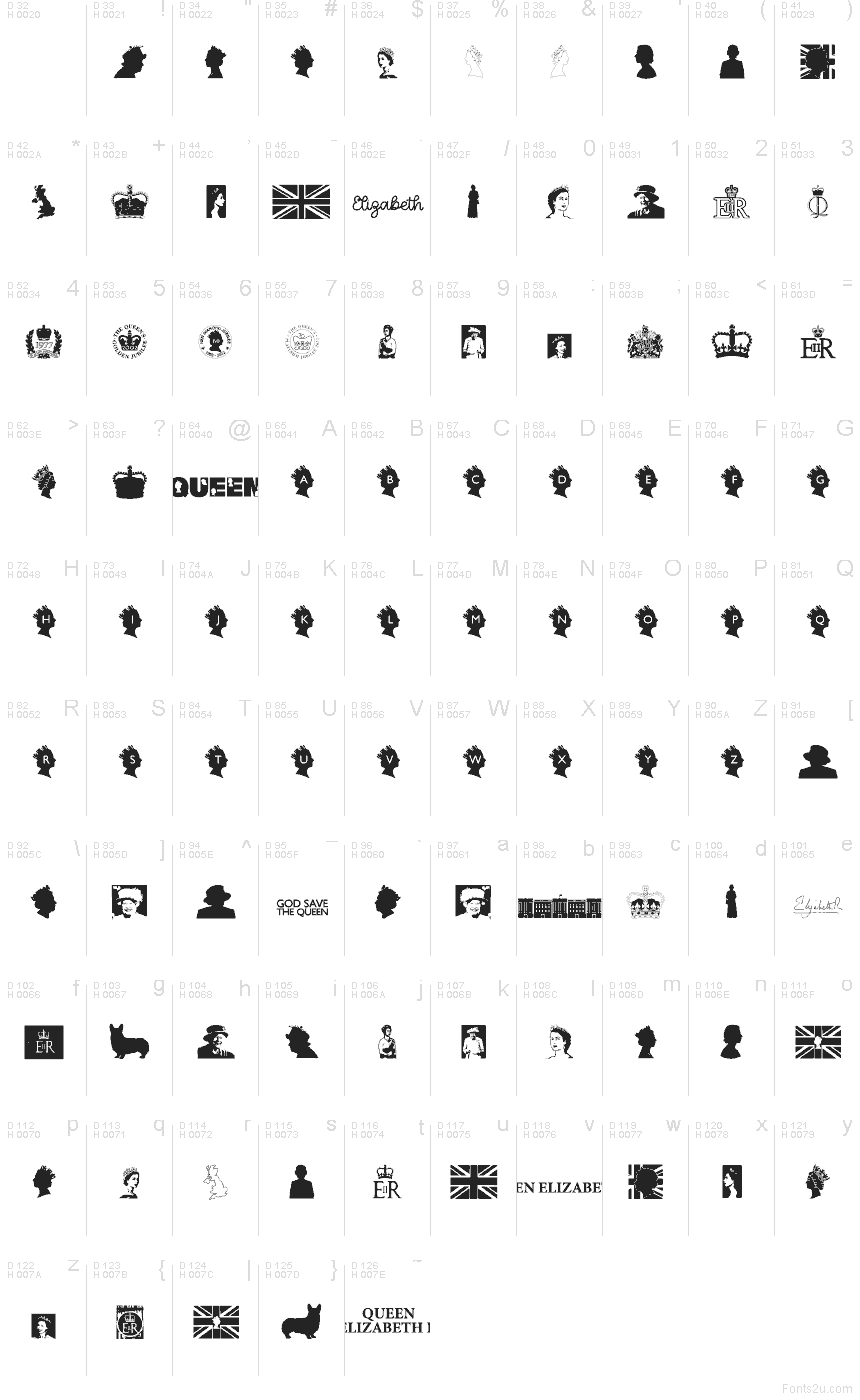
212 Queen Elizabeth
212 Queen Elizabeth font by 212 fonts is a free decorative display dingbat typeface that turns royal iconography into ready-to-use artwork. From crisp crowns and stately crests to corgis, Union Jack flags, silhouettes and postal-style badges, each glyph feels like a tiny ink stamp pulled from a vintage souvenir shop. The solid black shapes read clearly even at small sizes, making it easy to drop a touch of royalty into layouts without extra illustration work.
Using 212 Queen Elizabeth, you can quickly dress up commemorative posters, Jubilee-inspired event invitations, souvenir merchandise, scrapbooking pages, British-themed packaging, or social media graphics marking royal occasions. This free font works beautifully alongside a clean sans serif for text, letting the dingbats act as bold seals, icons, or borders. Try setting them larger as focal emblems, or in small clusters as decorative corner elements to frame your design.
Queen Elizabeth & Britain Silhouettes and Art